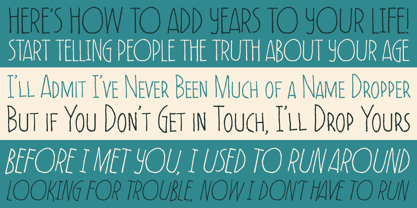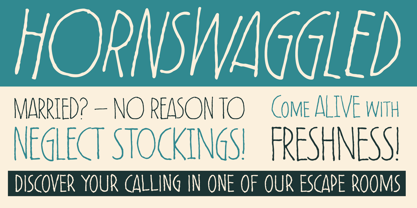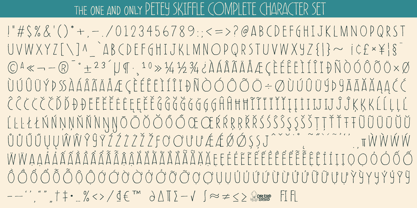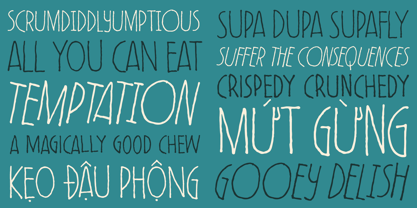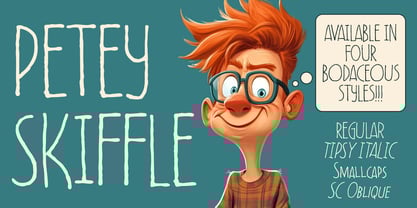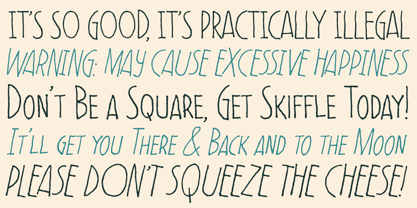
Petey Skiffle
par One Eyed Squid
La famille de polices Petey Skiffle a été conçue par Brian J. Bonislawsky, Dave Cohen et publiée par One Eyed Squid. Petey Skiffle contient 4 styles et options de package familial.
Petey Skiffle is a casual, friendly display font family with a polite personality, an easygoing rhythm, and a subtly quirky charm. Its hand-drawn character gives it a warm, approachable feel that works well for designs that want to feel relaxed, expressive, and full of understated personality. The family includes Regular, Italic, SC, and SC Oblique styles, offering flexible options for headlines, posters, branding, packaging, greeting cards, social media graphics, and other creative projects that benefit from a casual handmade voice with a slightly more assertive slant when needed. Includes extended Latin language support, including Vietnamese.
Concepteurs: Brian J. Bonislawsky, Dave Cohen
Éditeur: One Eyed Squid
Fonderie: One Eyed Squid